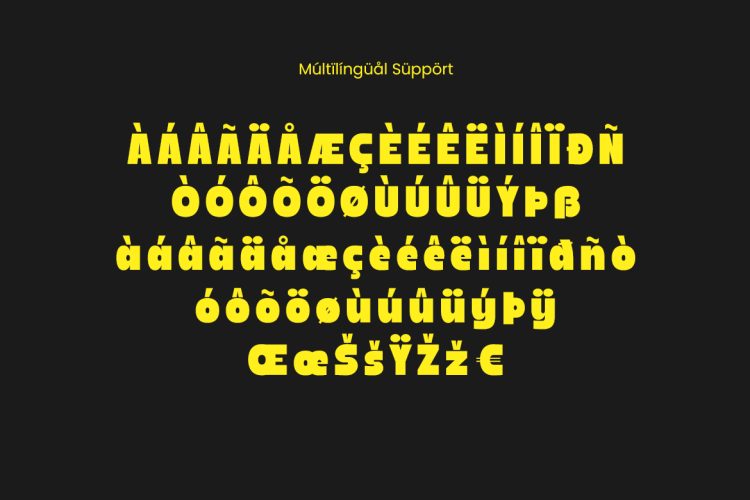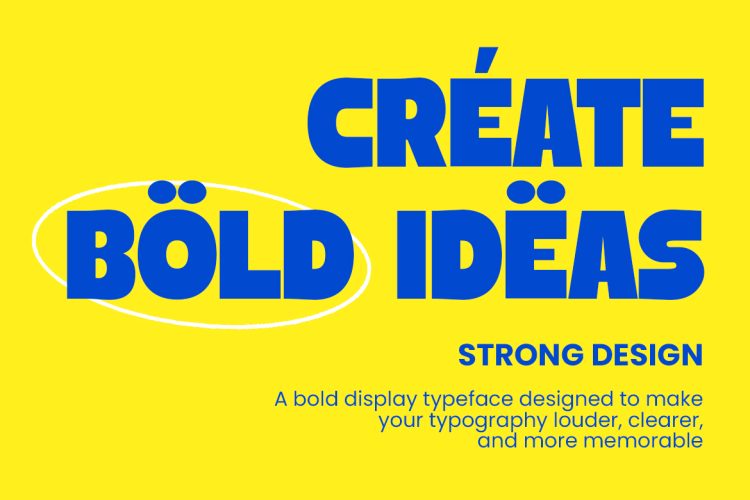
Bold Retro Energy โ Retro Font Maniche
Retro Font Maniche is a bold retro display font designed to make a powerful visual statement. Inspired by classic poster graphics and vintage bold typography, this font combines thick letterforms with strong geometric shapes. As a result, it creates an energetic and eye-catching style that instantly stands out. The heavy strokes and compact structure give every headline a confident and impactful presence. Moreover, the bold shapes add a sense of movement and excitement, making designs feel vibrant and expressive. Because of this distinctive style, Retro Font Maniche transforms simple text into strong visual elements that demand attention. In addition, the font keeps a clean structure that ensures readability even in large compositions. With support for 67 languages, this font allows designers from around the world to create bold global designs with consistent style.
Maniche is a strong display typeface built for modern bold typography. The letterforms feature thick strokes and balanced proportions that create a solid and confident look. At the same time, the geometric structure keeps the design clean and visually organized. Because of this combination, the font feels both retro and modern.
Furthermore, Maniche works extremely well for designs that require high visual impact. It performs beautifully in posters, advertising graphics, branding layouts, and promotional materials. In addition, the bold style makes it perfect for digital content such as Instagram posts, banners, and marketing visuals. The strong shapes help designs stand out instantly, while the structured forms keep the layout balanced and professional.
Retro Font Maniche is ideal for graphic designers, branding studios, marketers, and content creators who want bold typography with strong personality. It is perfect for poster designs, event promotions, festival graphics, modern branding, advertising campaigns, social media content, and creative marketing materials. Moreover, the font also works great for bold headlines, merchandise designs, and modern brand identities.